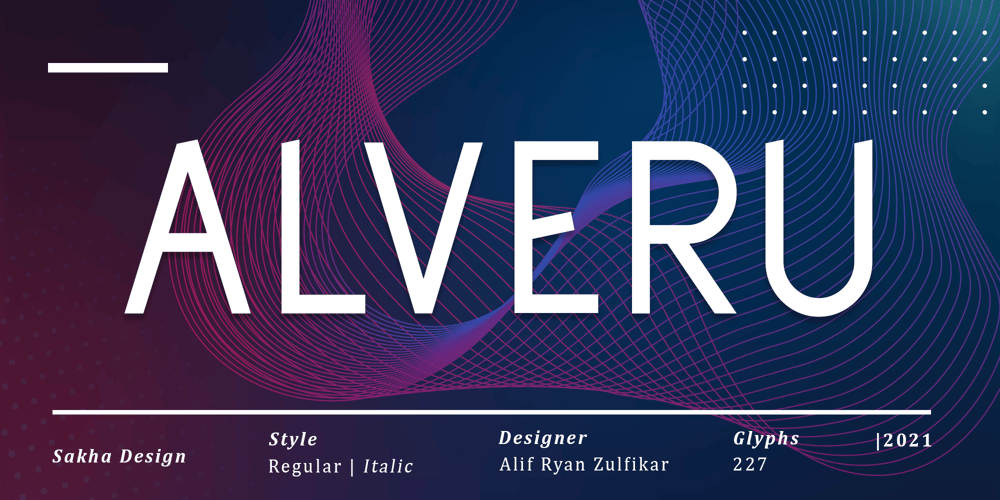
Alveru Font Family was designed by Alif Ryan Zulfikar and published by Sakha Design. Alveru contains 2 styles and family package options. Alveru is a minimal and neat sans serif font. It can easily be matched to an incredibly large set of projects, so add it to your creative ideas and notice how it makes them stand out!